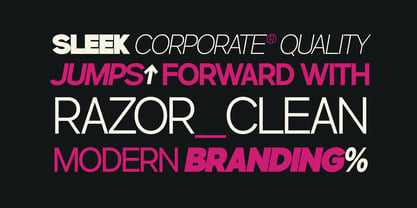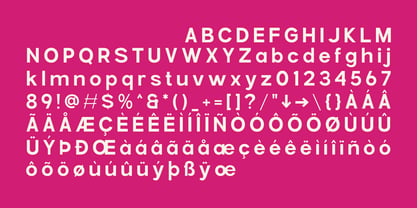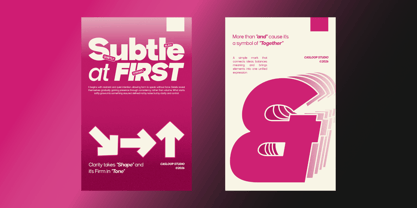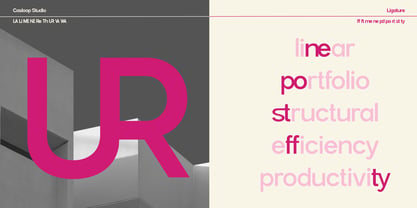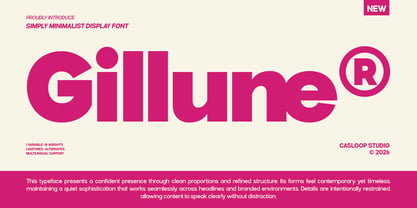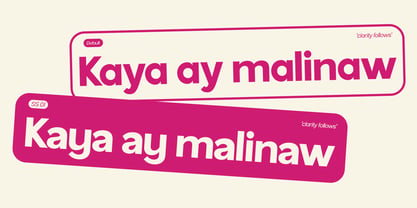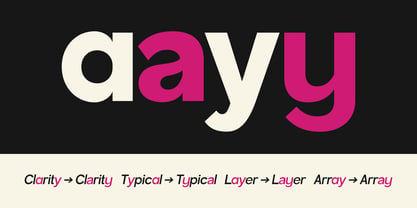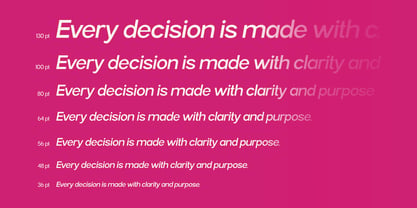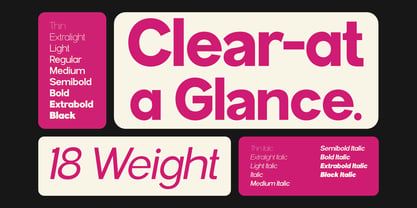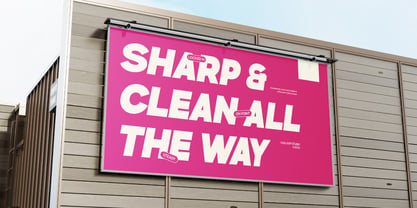
Gillune
by Casloop Studio
The Gillune Font Family was designed by Wantara Putra and published by Casloop Studio. Gillune contains 18 styles and family package options. More about this family
GILLUNE is a minimalist display font crafted for contemporary corporate identities. Built on clean geometry and disciplined curves, this font transitions effortlessly from subtle elegance to bold authority, enabling a flexible brand hierarchy while maintaining consistency. Signature characters like G, a, y, and R enhance its visual impact, making GILLUNE a perfect choice for logos, titles, interfaces, and long-term branding systems. It pairs beautifully with fonts such as Inter, IBM Plex Sans, Source Sans 3, Acumin, Source Sans Pro, and Neue Haas Grotesk. Features: - Uppercase & lowercase letters - Numbers and punctuation - Ligatures & Stylistic Alternates Multilingual support: Bosnian, Catalan, Czech, Danish, German, English, Spanish, Estonian, Finnish, French, Bergen, Wild, Irish, Mango, Croatian, Hungarian, Icelandic, Italian, Lithuanian, Tan, Latvian, Dutch, Norwegian, Polish, Haas, Portuguese, Romanian, Slovak, Slovenian, Albanian, Swedish, Turkish. Compatibility: GILLUNE works seamlessly with Adobe Illustrator, Photoshop, Affinity, Figma, Canva, Kittl, and more, making it a versatile choice for designers seeking a modern and timeless font solution.
Designers: Wantara Putra
Foundry: Casloop Studio